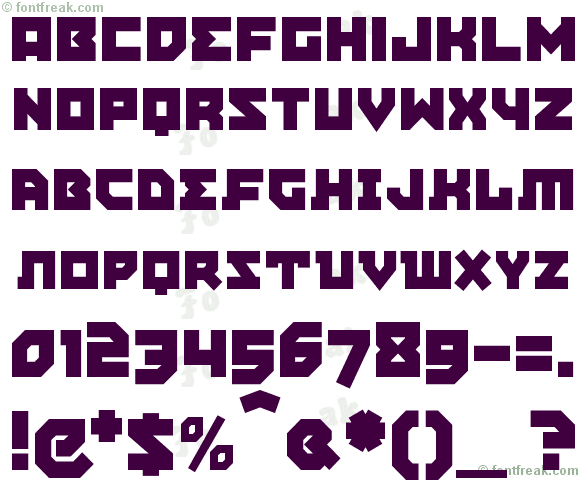
AgitProp Medium
About Agit Prop
Agit Prop is a distinctive display font designed by Sergey Kazakov, known for its unique character and artistic flair. This font is classified as a decorative typeface, featuring bold, geometric letterforms that evoke a sense of dynamism and modernity. The strokes are consistently thick, creating a strong visual presence that captures attention. The design showcases minimal contrast between the thick and thin strokes, which lends a uniformity that enhances readability while maintaining an artistic edge. The spacing between letters is carefully balanced, ensuring clarity without sacrificing style.
The Agit Prop font is ideal for a variety of creative projects. Its striking appearance makes it a perfect choice for eye-catching movie posters, where bold typography can convey the essence of the film. Additionally, it works well for contemporary restaurant menus, adding a modern twist to the dining experience. Graphic designers can use Agit Prop for branding projects, particularly those aimed at a youthful audience looking for something fresh and engaging. The font can also enhance promotional materials for events, providing an impactful visual element that draws in potential attendees.
What sets Agit Prop apart is its ability to blend artistic expression with functionality. The bold design and modern aesthetic allow for both visual intrigue and practical application, making it a valuable resource for any designer’s toolkit. For those interested, the Agit Prop font free download is available, inviting all to explore its distinctive style.